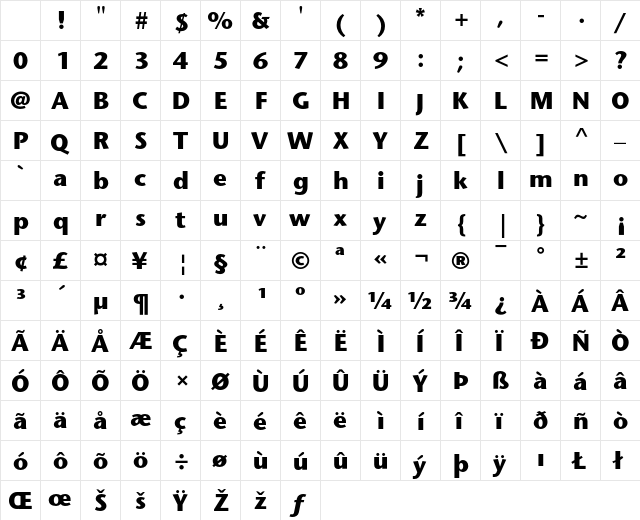
Complete ITC Stone Sans Bold glyph index. Displaying only characters natively supported by ITC Stone Sans Bold font.
ITC Stone Sans is a composed and adaptable typeface that performs quietly and consistently across a wide range of design contexts. Its bold stroke weight gives it real presence on the page.